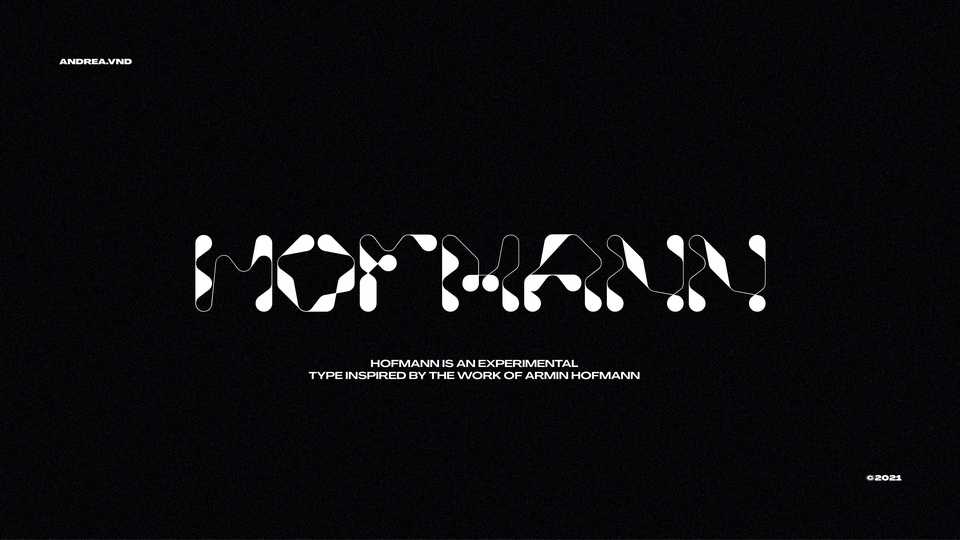
Download Hofmann font, an experimental typeface inspired by the work of swiss designer Armin Hofmann. It was designed for the First Issue of the independent magazine U_UZ3R whose theme is “Fluid”.
Designer: Andrea Venditti